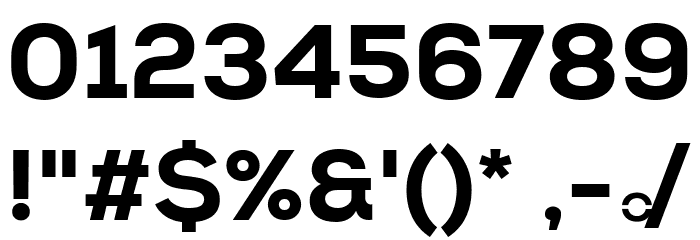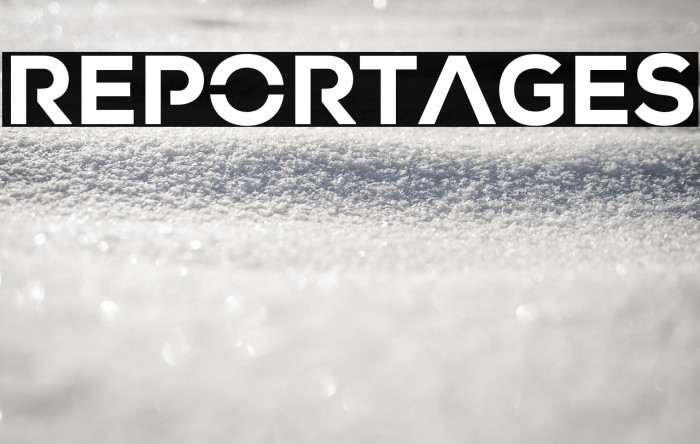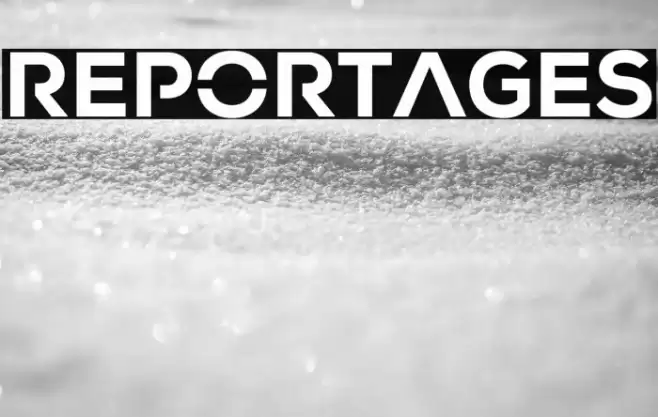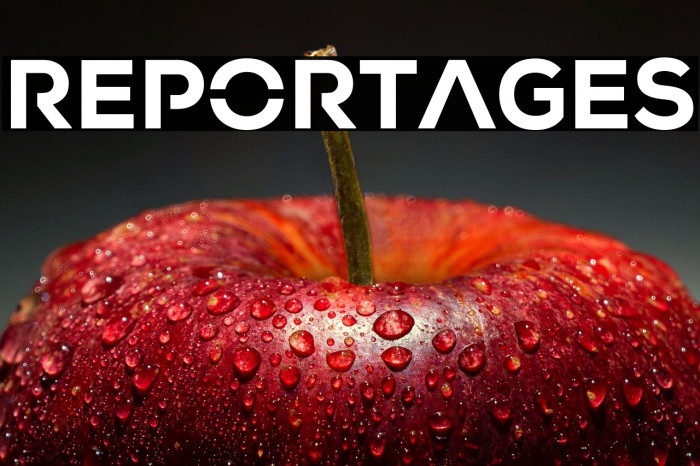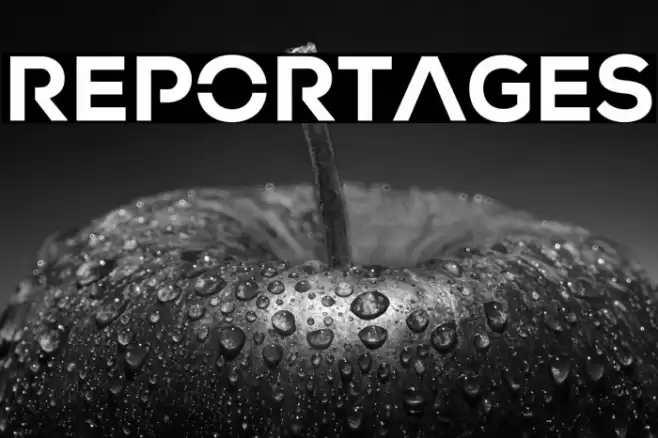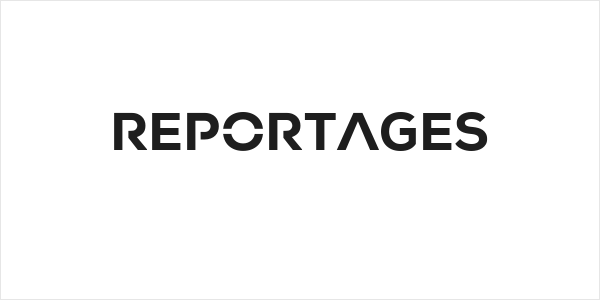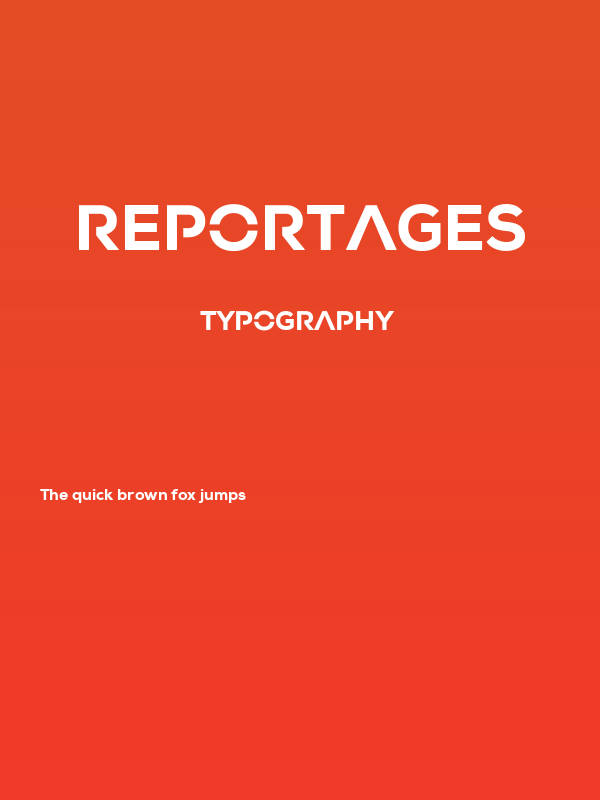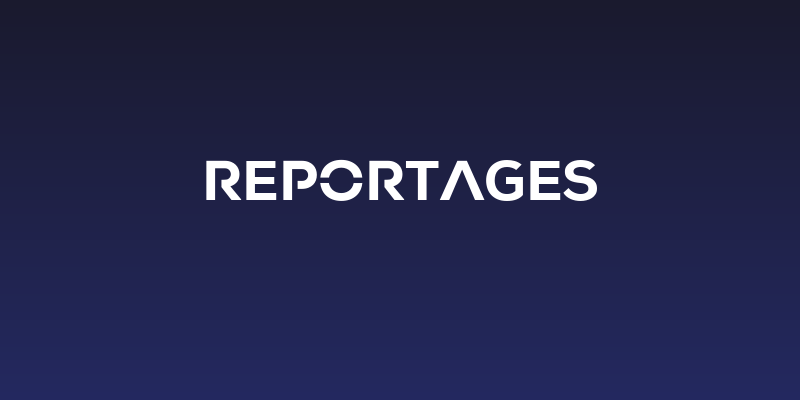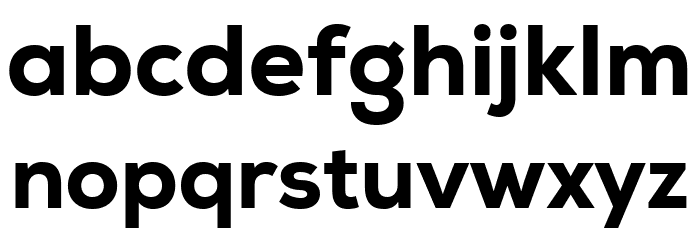
REPORTAGES Font
REPORTAGES Description
This font features a clean and modern sans-serif design with a geometric structure. The characters are bold and uniform, providing excellent readability and a strong visual impact. The uppercase letters are slightly wider than the lowercase, maintaining a consistent weight throughout. The numbers are clear and distinct, making them suitable for various applications. Special characters are well-defined, adding to the font's versatility. The overall appearance is sleek and professional, ideal for contemporary design projects.